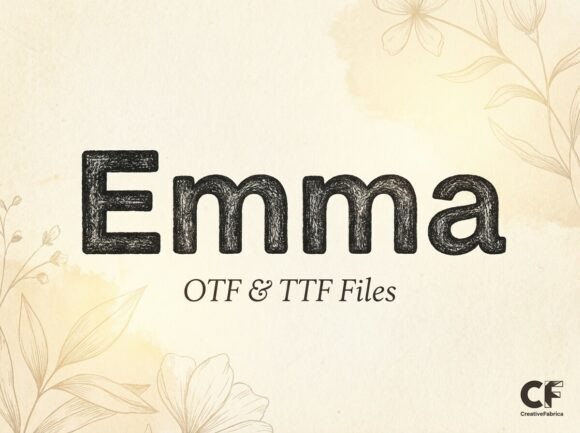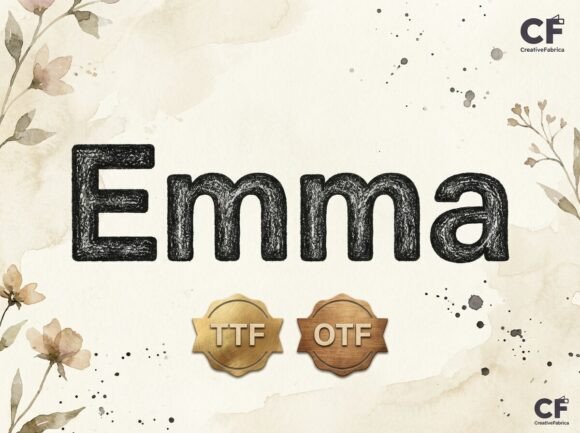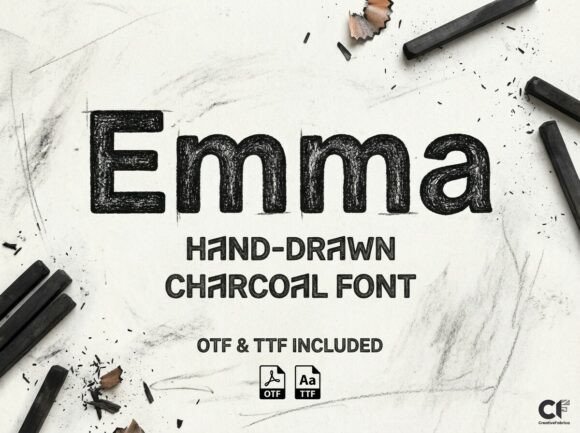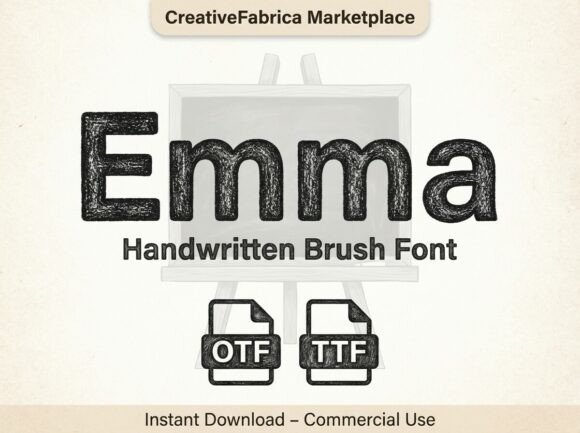
Introducing Emma Font: The Rustic Hand-Drawn Sans Serif with a Cozy Touch
Are you tired of using the same old fonts that lack personality and warmth? Look no further than Emma, a charming sans serif font that captures the essence of handcrafted art. With its beautiful, organic pencil-sketch texture and friendly, rounded letterforms, Emma brings a cozy, “human” touch to any design.
The Inspiration Behind Emma
Emma is a typeface that celebrates the imperfections and uniqueness of hand-drawn art. Its rustic, grainy finish gives it a natural, earthy feel that is perfect for designs that require a personal touch. Whether you’re working on a children’s book illustration, rustic packaging, organic brand identity, or personalized greeting card, Emma is the perfect choice.
Key Features of Emma Font
• Hand-drawn texture: Emma features a beautiful, organic pencil-sketch texture that gives it a unique, handcrafted feel.
• Rounded letterforms: The font’s friendly, rounded letterforms make it perfect for designs that require a warm and approachable tone.
• Grainy finish: Emma’s authentic grainy finish adds a natural, earthy touch to any design.
• Versatile: Emma is a versatile font that can be used for a wide range of design projects, from children’s book illustrations to rustic packaging and organic brand identities.
Emma is a font that is sure to delight designers and crafters alike. Its unique texture and rounded letterforms make it perfect for a wide range of design projects, including:
• Children’s book illustrations: Emma’s playful, hand-drawn texture makes it perfect for children’s book illustrations that require a fun and engaging tone.
• Rustic packaging: The font’s rustic, grainy finish makes it perfect for rustic packaging designs that require a natural, earthy feel.
• Organic brand identities: Emma’s organic texture and rounded letterforms make it perfect for organic brand identities that require a warm and approachable tone.
• Personalized greeting cards: The font’s friendly, hand-drawn texture makes it perfect for personalized greeting cards that require a personal touch.
Why Choose Emma Font?
There are many fonts available that claim to offer a unique and handcrafted feel, but Emma stands out from the rest. Here are just a few reasons why:
• Unique texture: Emma’s hand-drawn texture is truly unique and sets it apart from other fonts.
• High-quality design: The font is designed with high-quality craftsmanship in mind, ensuring that it looks great in any design.
If you’re looking for a font that feels as natural as a hand-drawn sketch, Emma is your go-to creative companion. With its beautiful, organic pencil-sketch texture and friendly, rounded letterforms, Emma brings a cozy, “human” touch to any design. Whether you’re a designer or crafter, Emma is the perfect choice for any project that requires a personal touch.